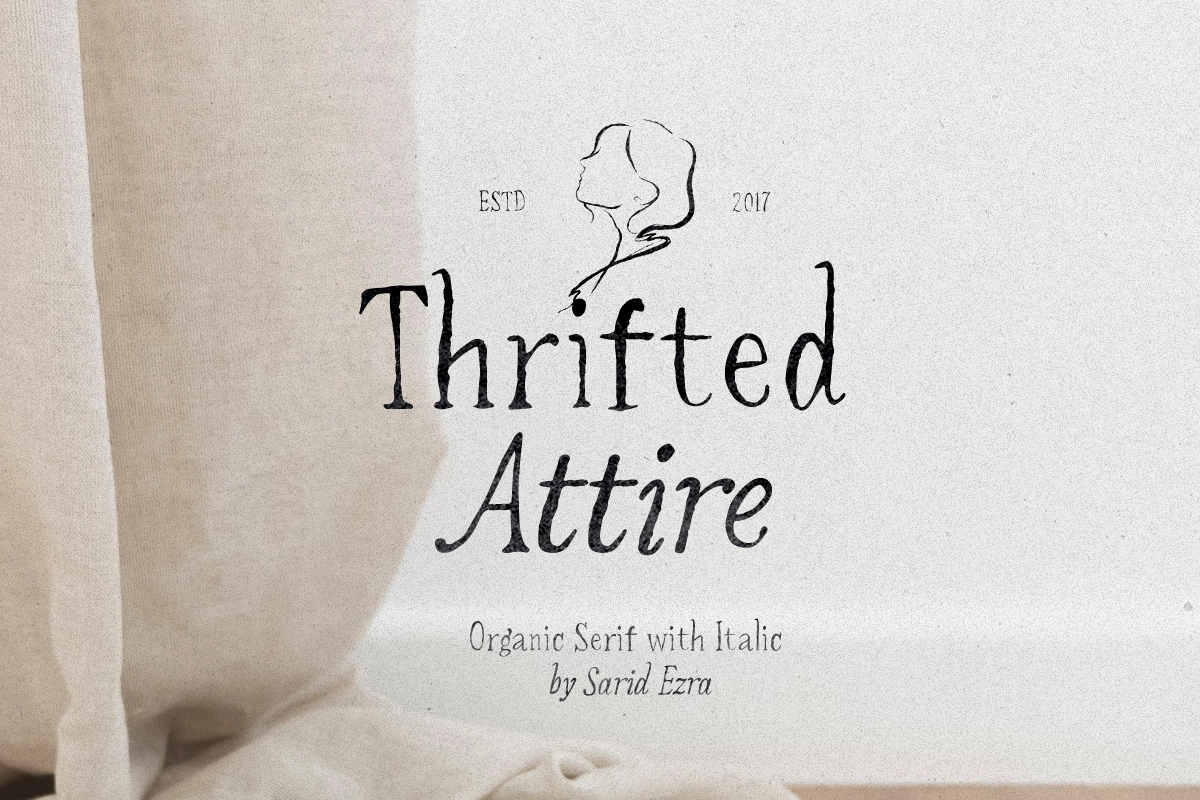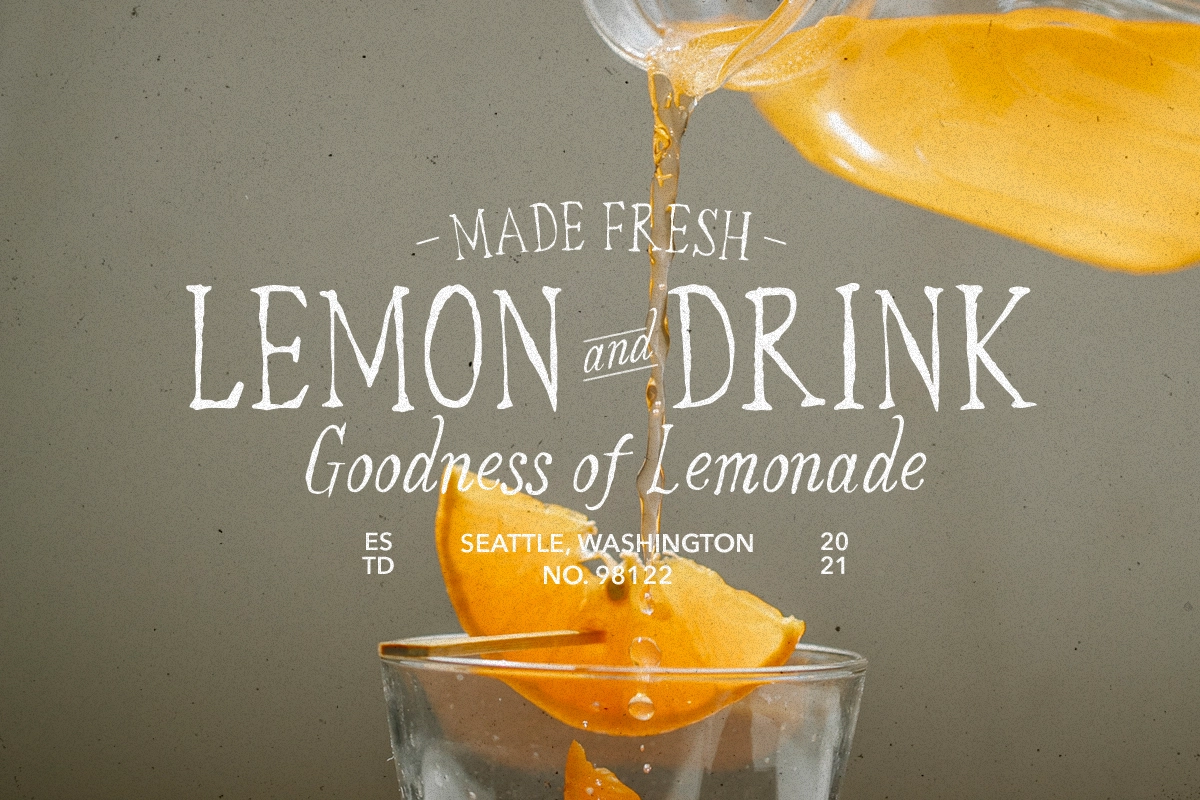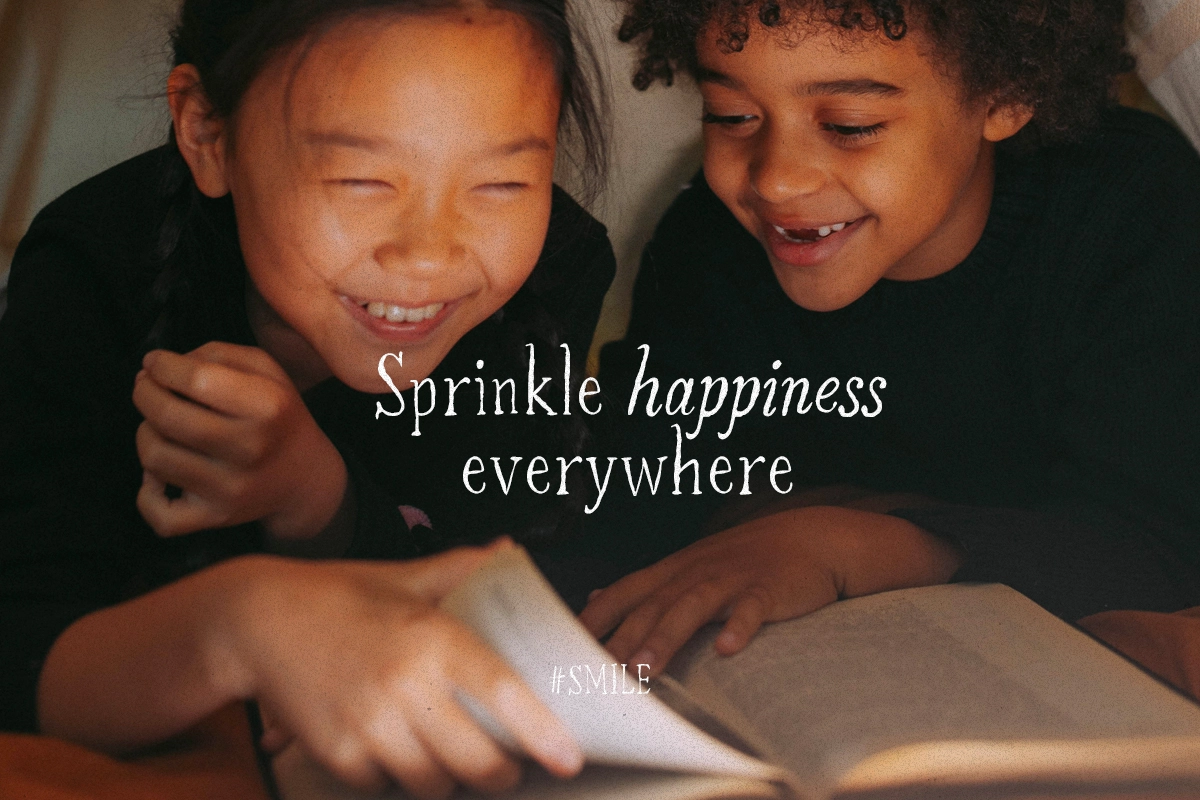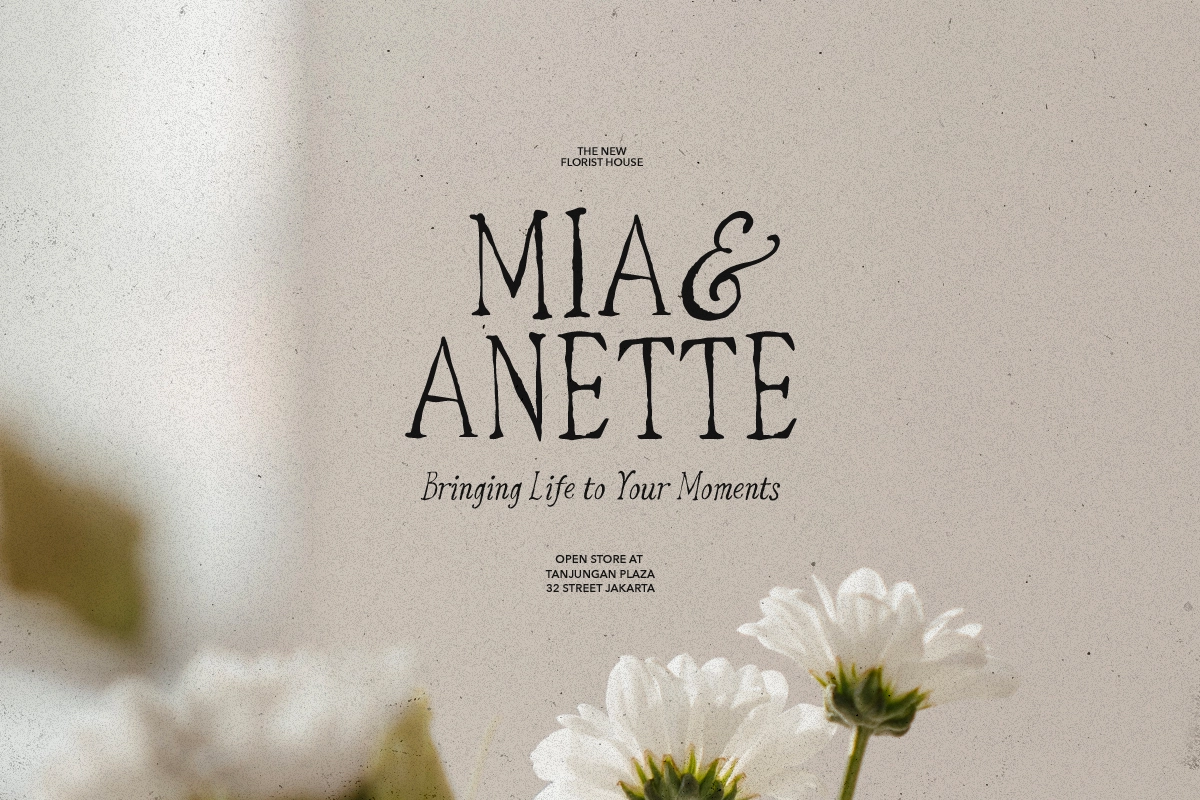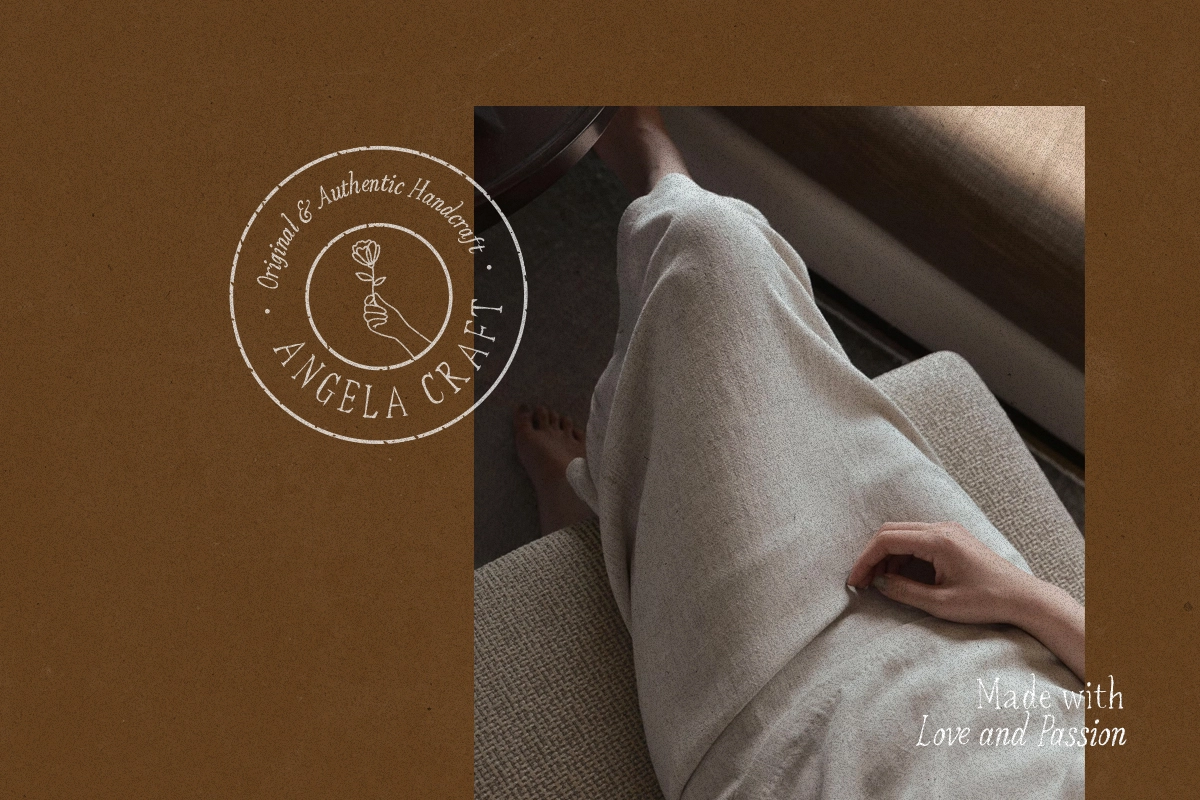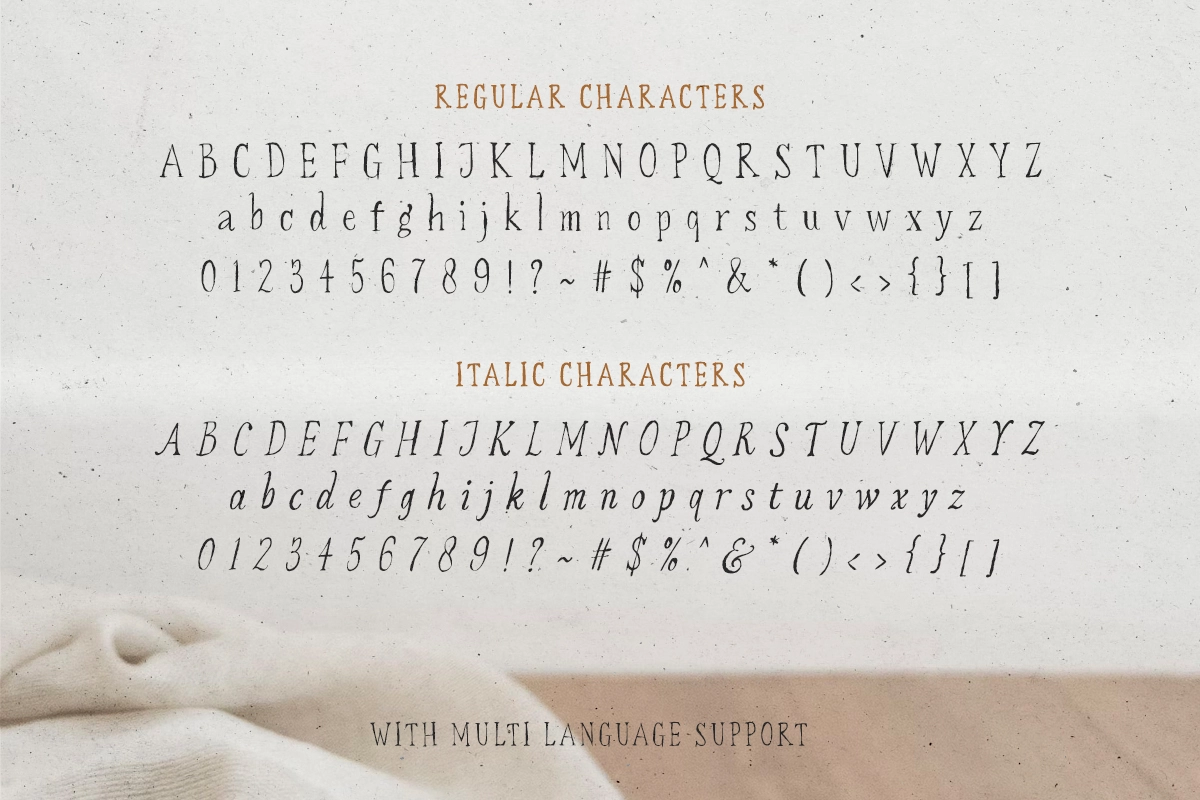
Thrifted Attire - Organic Serif
Thrifted Attire is a serif family that have natural and handmade looks. With regular and italic version, you can combine them in a sentence to make your quotes more appealing and stunning. You can also use this font for any purpose such as logotype, wedding invitations, and any project that needs natural looks. This font also support multi language!